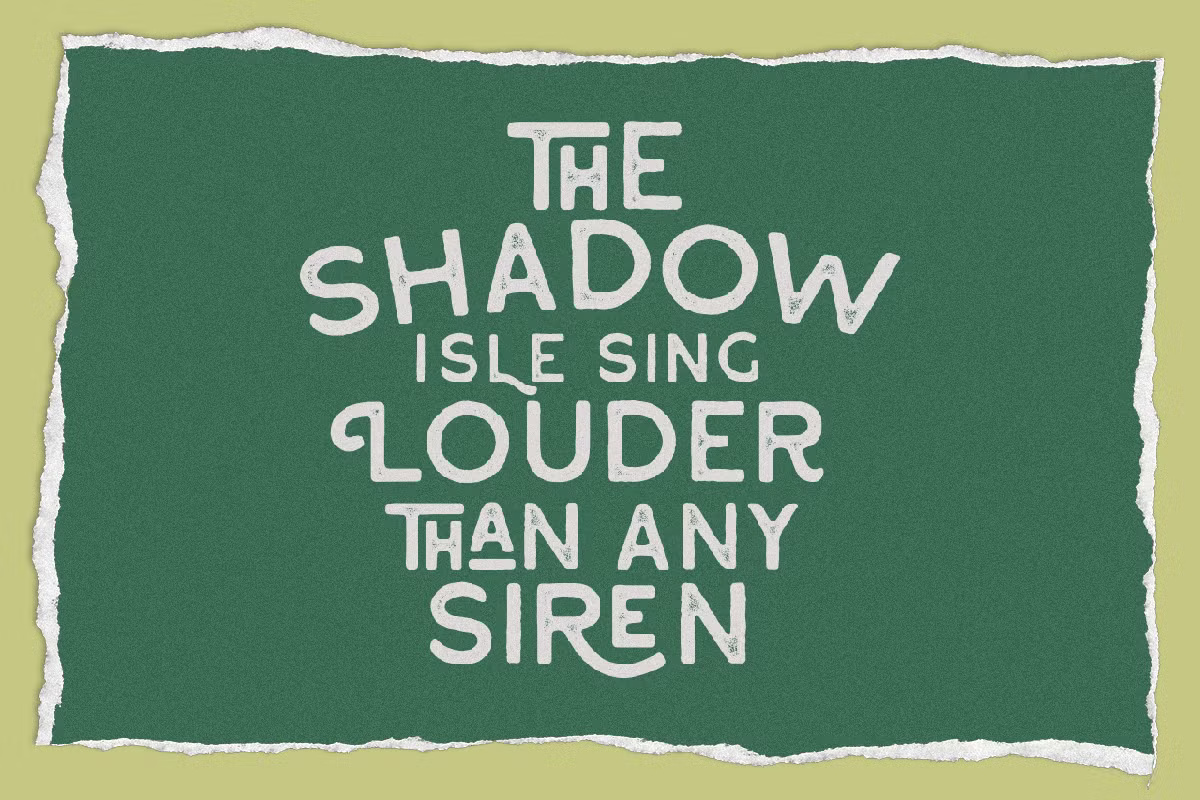
Reliva Font
Reliva is a modern organic sans-serif font designed to stand out. With numerous alternates and ligatures, this font brings a unique and distinctive touch to your designs. Plus, it includes six high-quality illustrations to complement your creative projects.
Perfect for logotypes, branding, packaging, and quotes, Reliva adds a stylish and professional feel to any design.